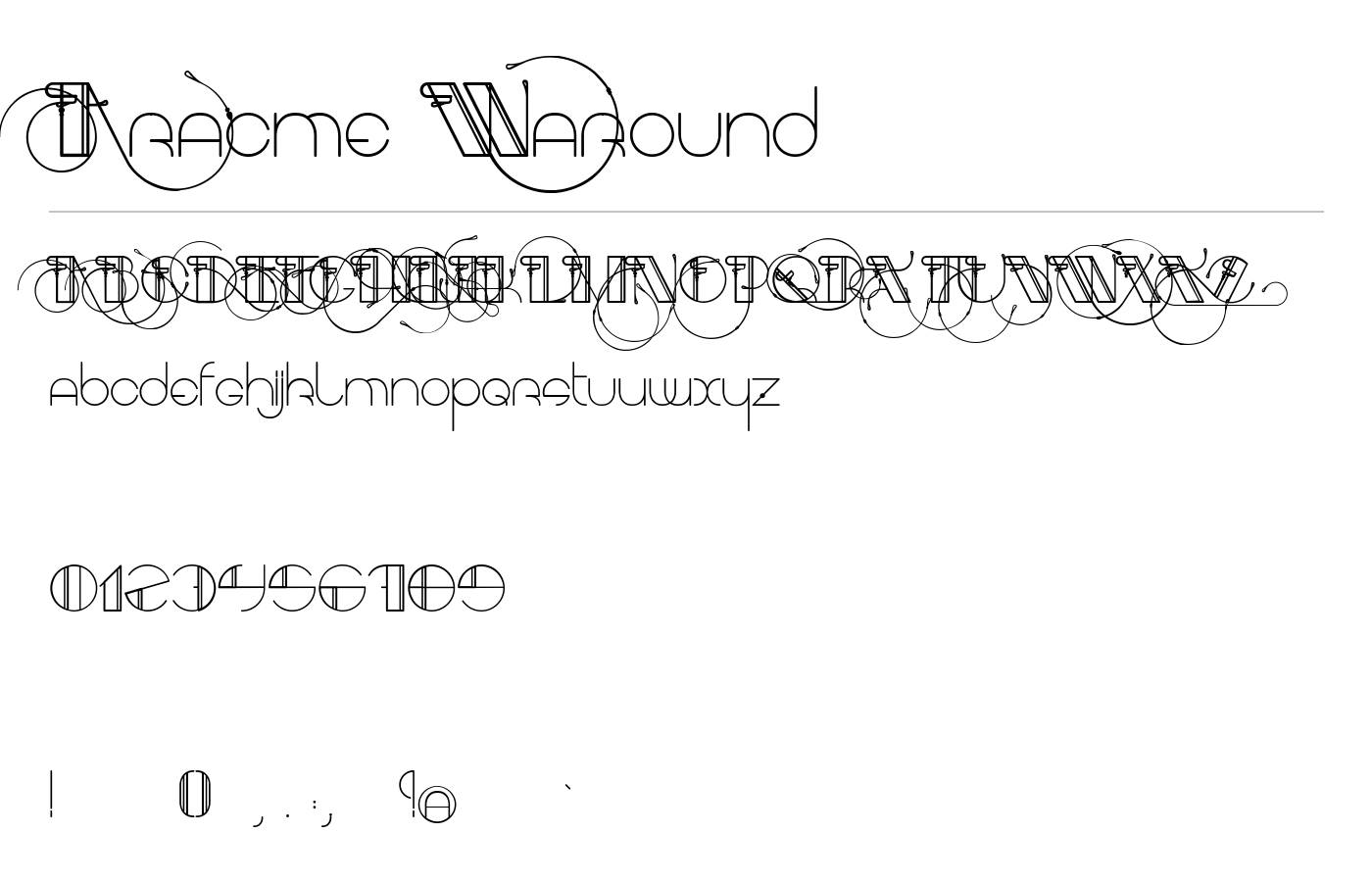
Aracme Waround is a highly decorative sans serif font characterized by ultra-thin lines and intricate swirling loops that create a delicate, artistic feel. Its narrow letterforms and elegant, geometric shapes give it a modern yet whimsical personality, making it ideal for creative branding, fashion logos, and elegant invitations where a unique, eye-catching style is desired. This font works best in display use where its fine details can be appreciated without sacrificing readability.
Aracme Waround Font
About Aracme Waround Font